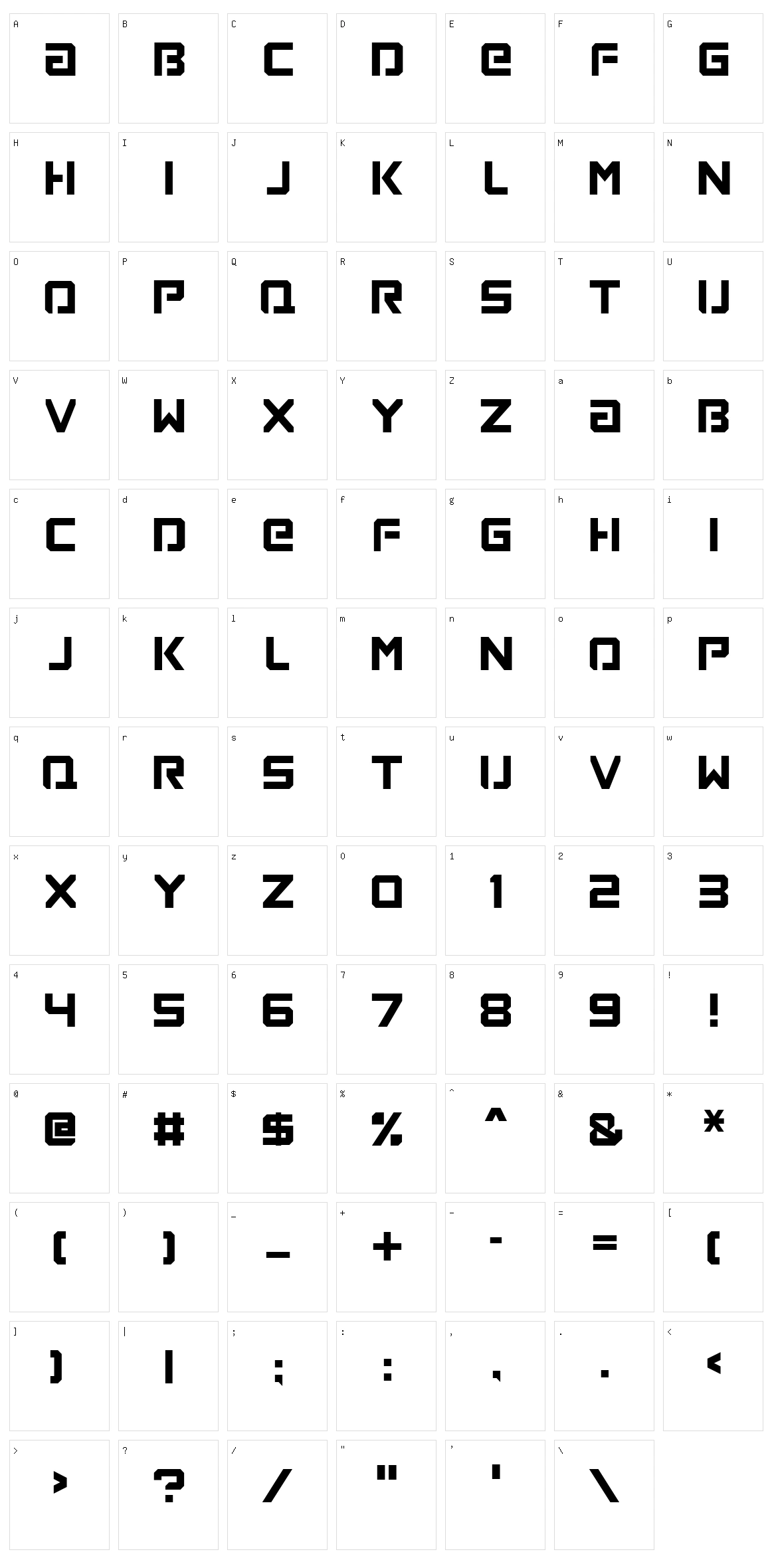
The free font Loaded is carefully designed by Andrew Wilson, showcasing a thoughtful balance of creativity and usability and falls under the Square font style. When you download the ZIP file, it contains only 8.45 KB of font files, making it lightweight and quick to download. Please review the license details below to understand permitted usage and distribution rights. If license information is not available, we recommend using this font for personal projects only or contacting the author directly for commercial usage permissions.